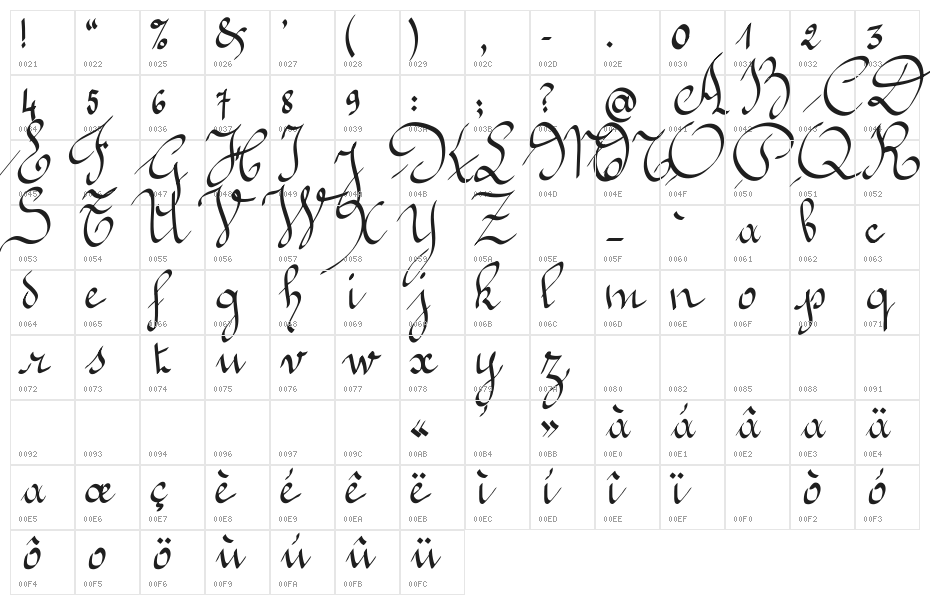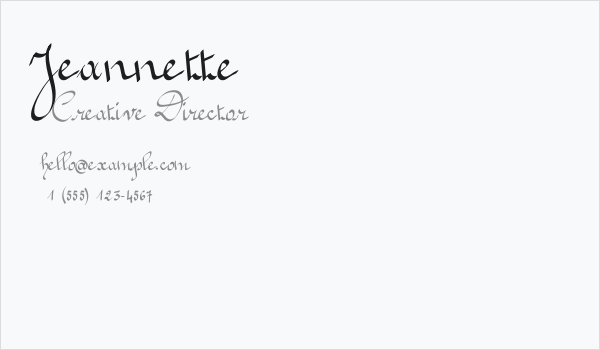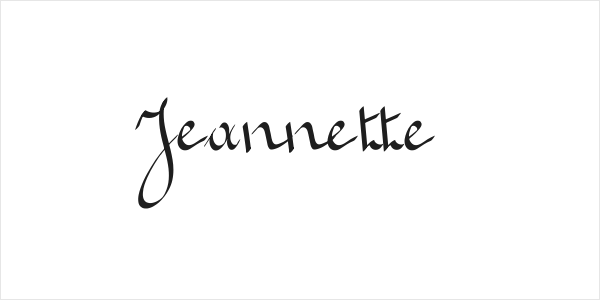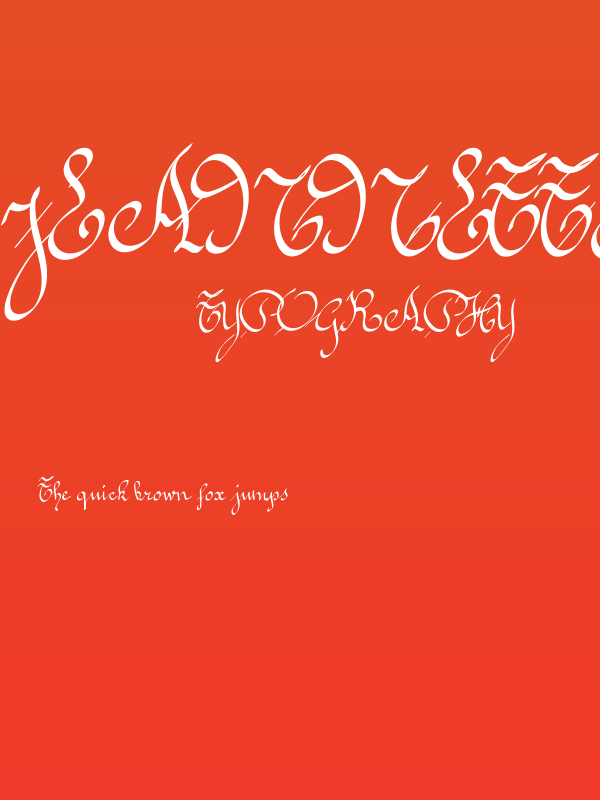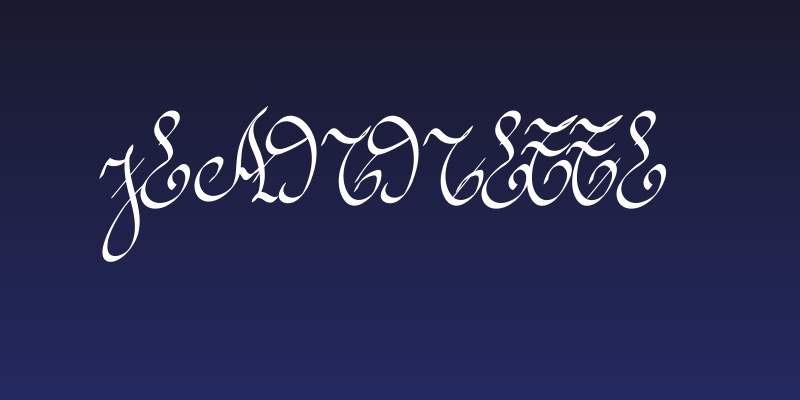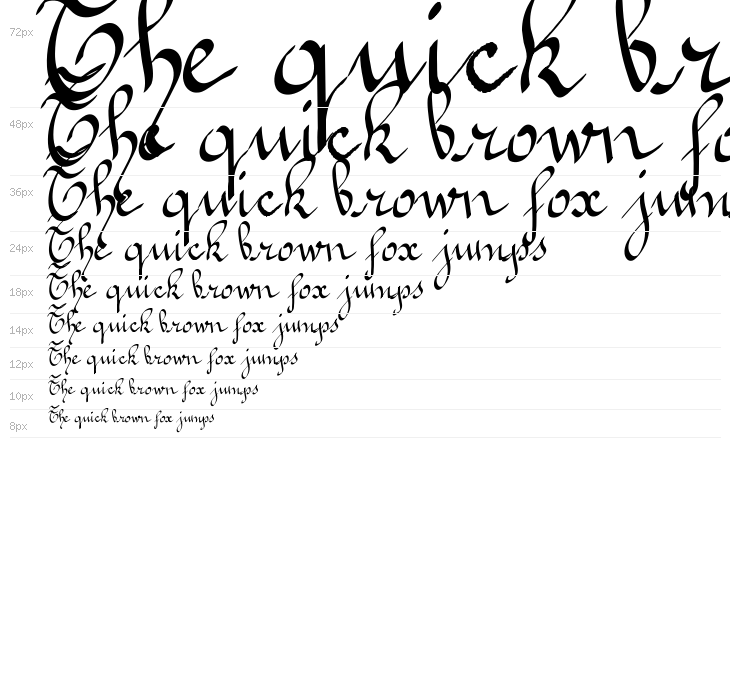
Jeannette Font
Jeannette Description
This font features an elegant and flowing script style, characterized by its intricate and ornate letterforms. The uppercase letters exhibit a graceful, sweeping motion with high ascenders and descenders, giving it a sophisticated and artistic appearance. The lowercase letters maintain a consistent fluidity, enhancing the overall aesthetic with their connected strokes. The numerals are bold and slightly more structured, providing a nice contrast to the delicate script. Special characters are seamlessly integrated, maintaining the font's cohesive style. This font's high contrast in stroke thickness adds to its dramatic and expressive nature.
| Proposed Projects | Ideal for wedding invitations, elegant branding, luxury product packaging, and artistic posters. |